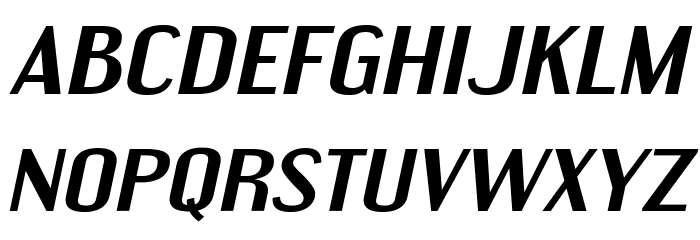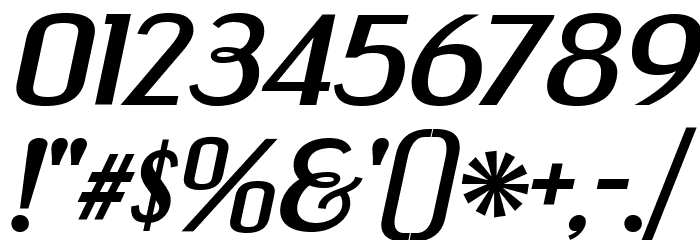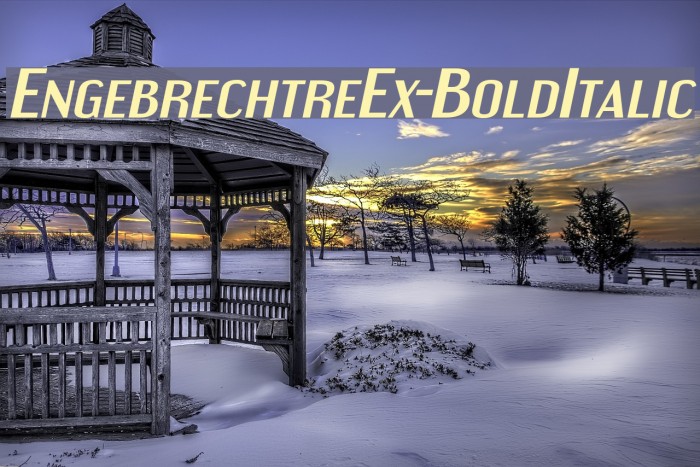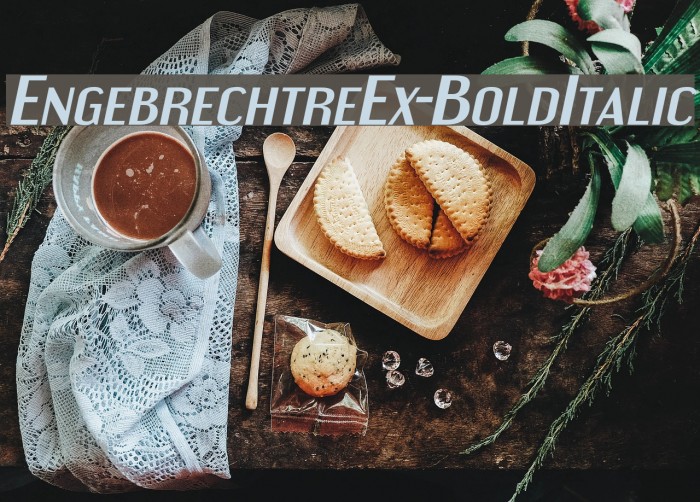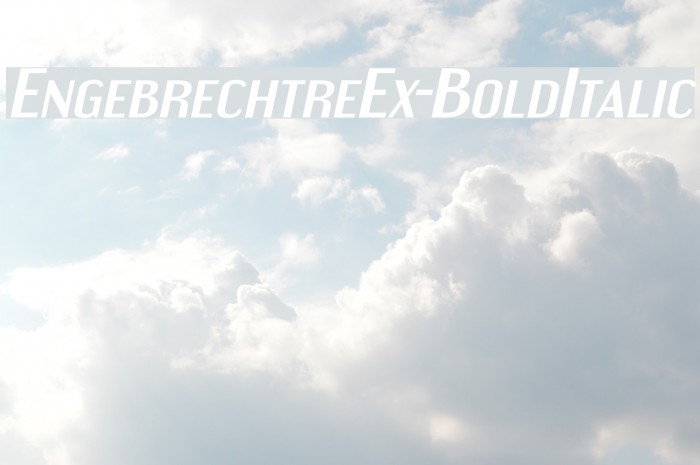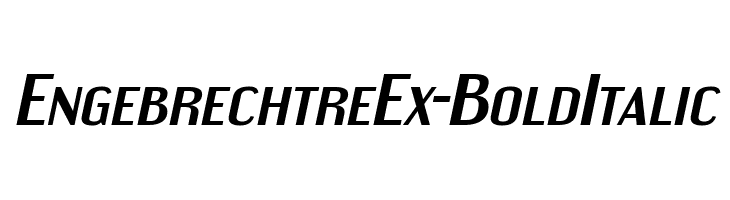
EngebrechtreEx-BoldItalic Font
This font exhibits a bold and italicized style, characterized by its strong and dynamic presence. The letters are slanted, giving a sense of motion and energy. The strokes are thick, providing a robust and impactful appearance. The uppercase and lowercase letters maintain a consistent slant, enhancing the cohesive look. Numbers and special characters follow the same stylistic approach, ensuring uniformity across all glyphs. The design is modern and sleek, suitable for making a statement in various design contexts.
A bold, italicized font with a dynamic and modern style.
- Proposed Projects: Ideal for branding, advertising, and headlines where a strong, modern impact is desired.
- Use Case: Headlines, Logos, Advertising